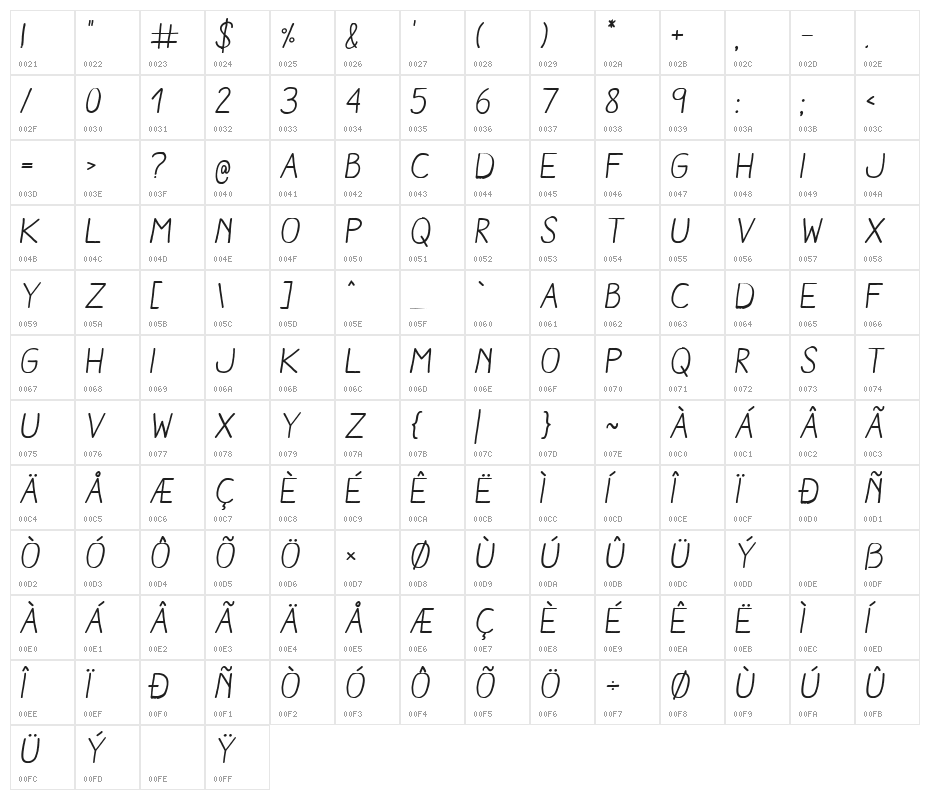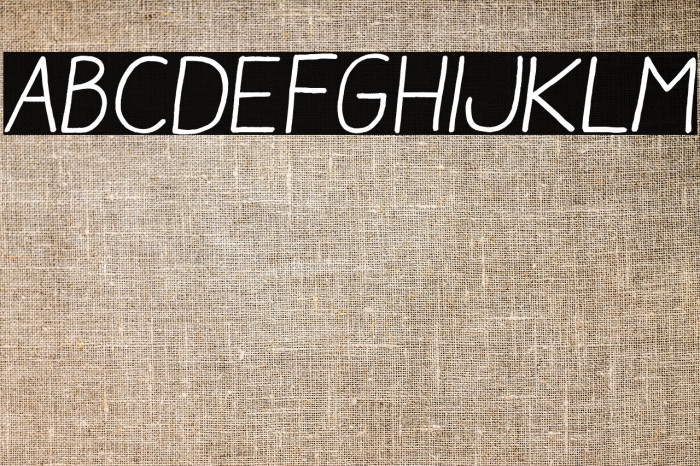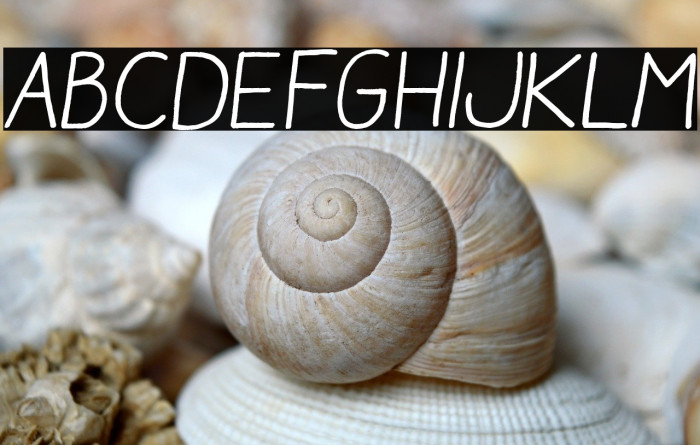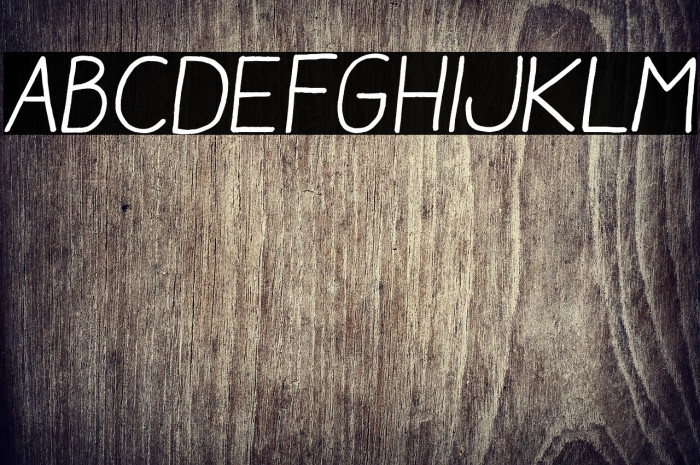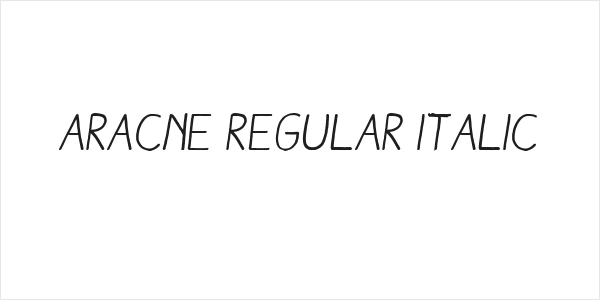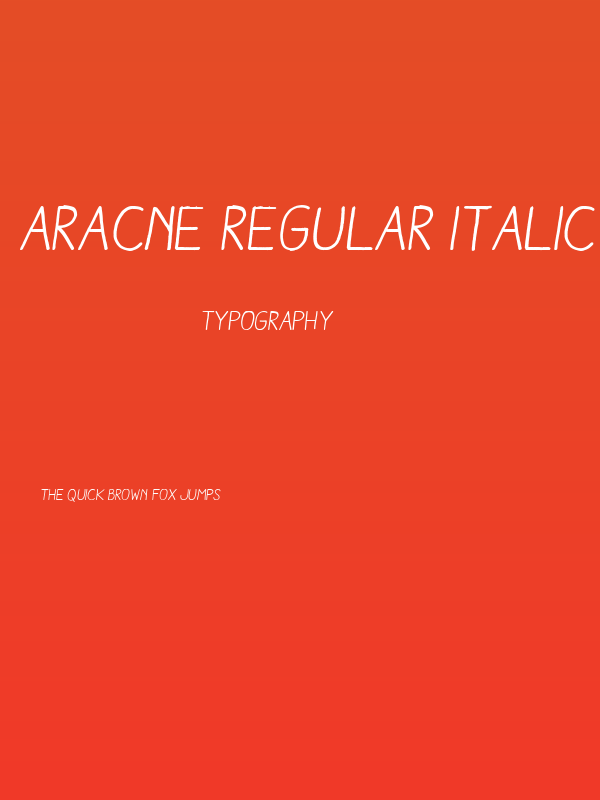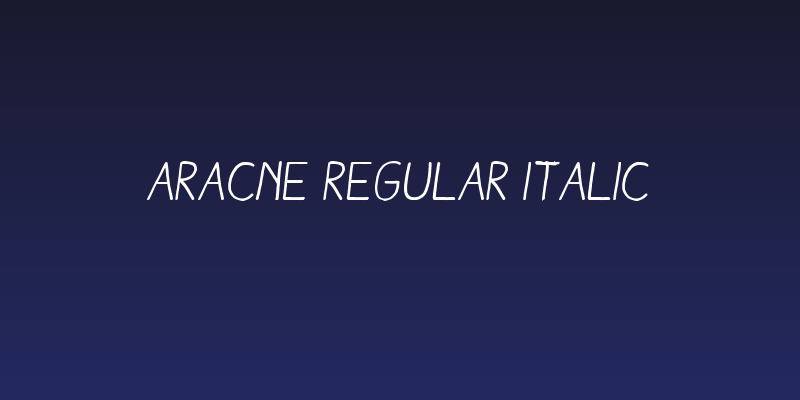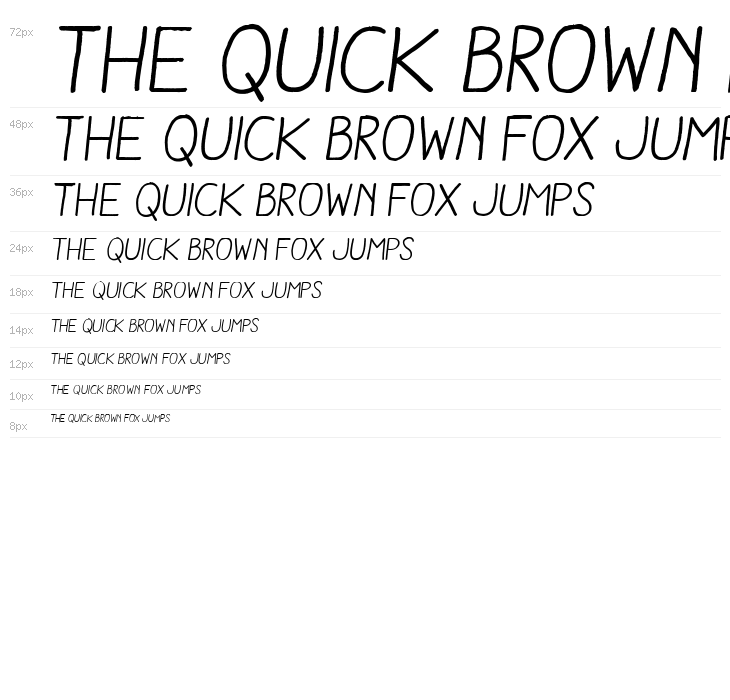
Aracne Regular Italic Font
Aracne Regular Italic Description
This font features a casual, handwritten style with a slight slant, giving it an informal and approachable appearance. The characters are evenly spaced, with a consistent stroke width that maintains readability. The uppercase and lowercase letters are well-proportioned, and the numerals are clear and distinct. Special characters are included, enhancing its versatility for various uses. The overall design is clean and modern, making it suitable for projects that require a personal touch.
Use CaseHeadlines, Logos, Social media graphics
Proposed ProjectsIdeal for personal notes, invitations, casual branding, and social media graphics.